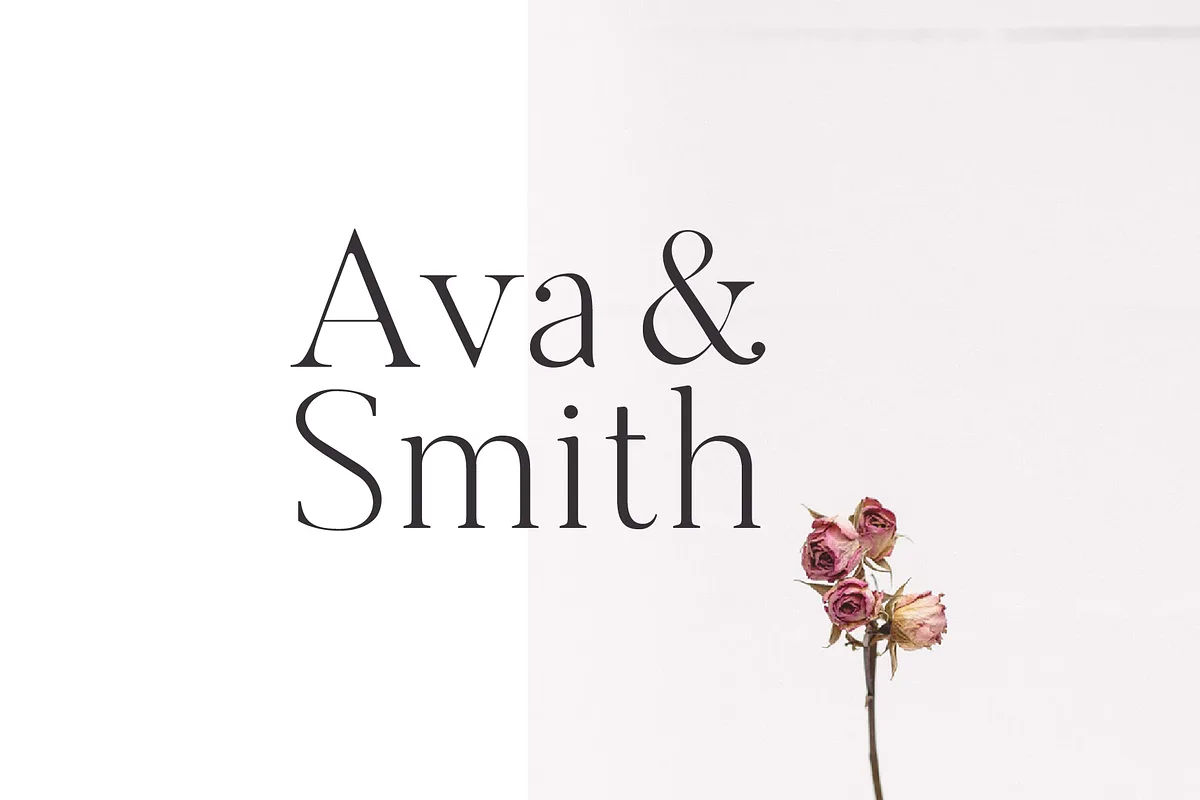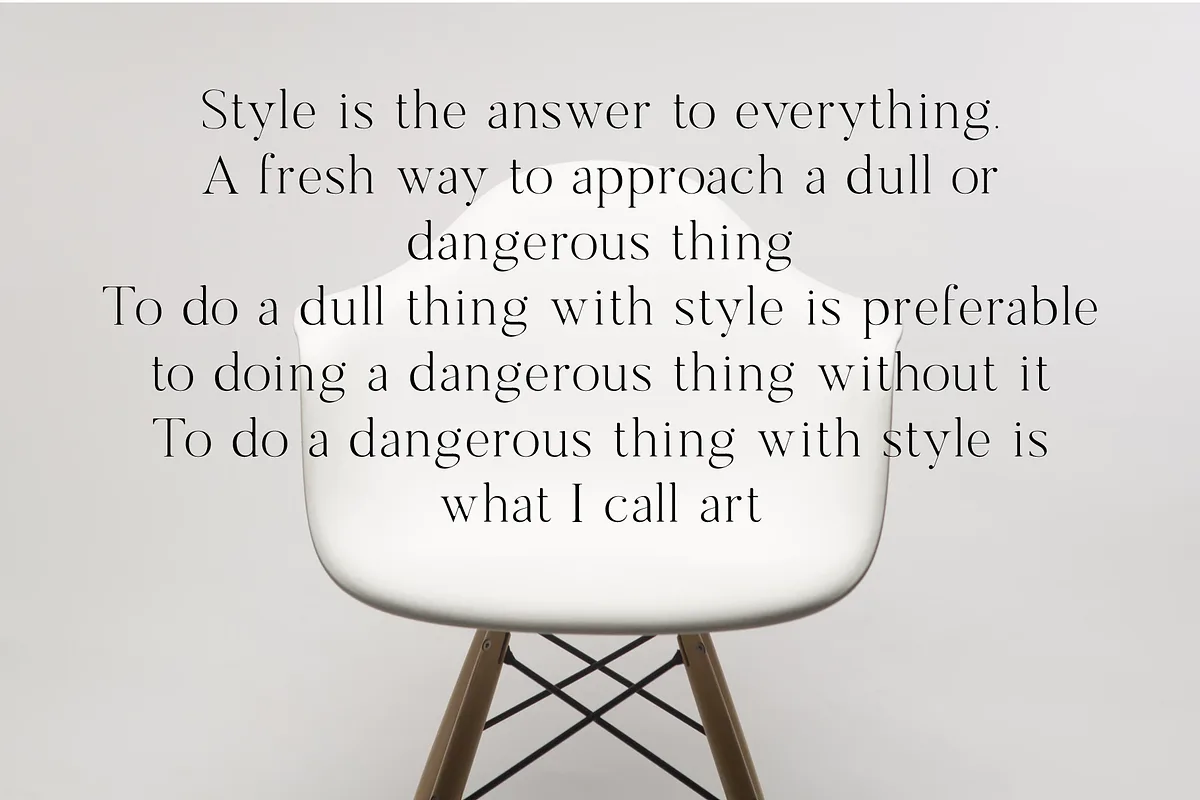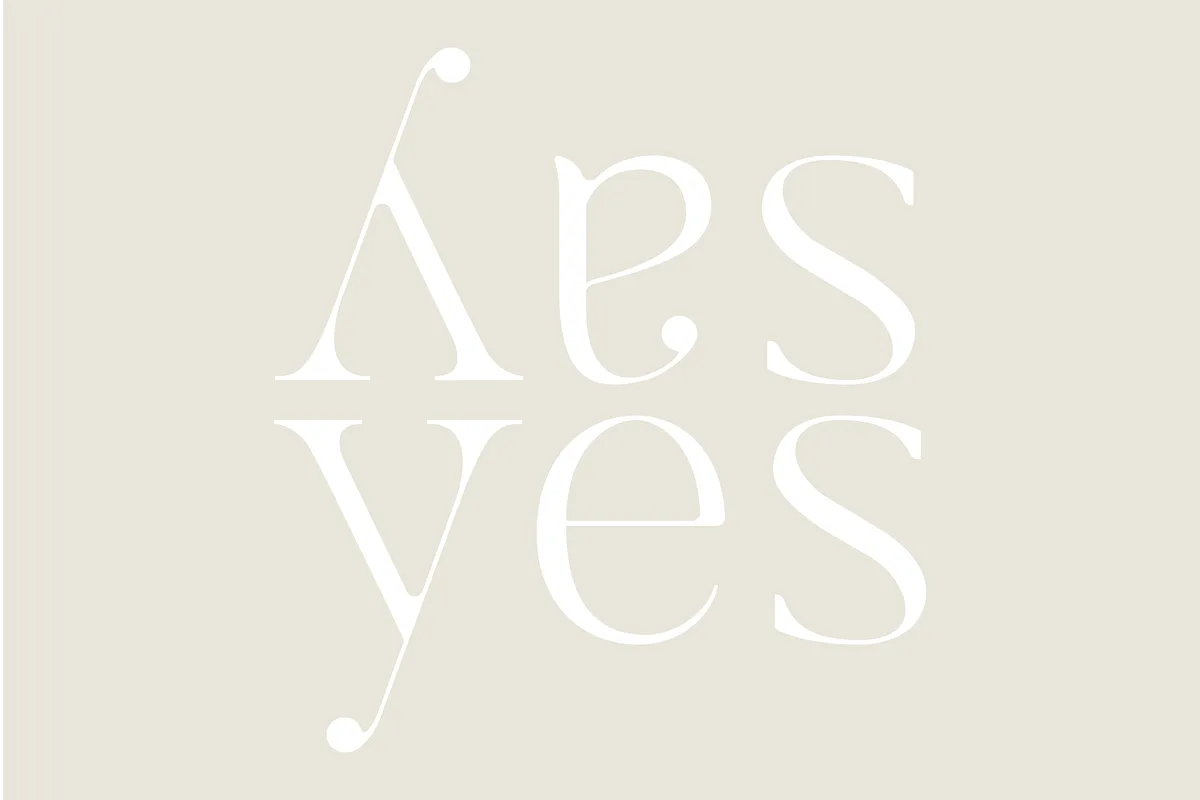
Sundays is a modern serif font that mixes the modern and classic. Inspired by fonts like Baskerville, I have thinned out the classic serif font adding subtle curves and minimal serifs. Great for mastheads, magazines, logos and headers. Pairs well with any simple sans serif font like Lato / Proxima Nova or a light script font. Comes with numbers and symbols.
Sundays – Modern Serif Font